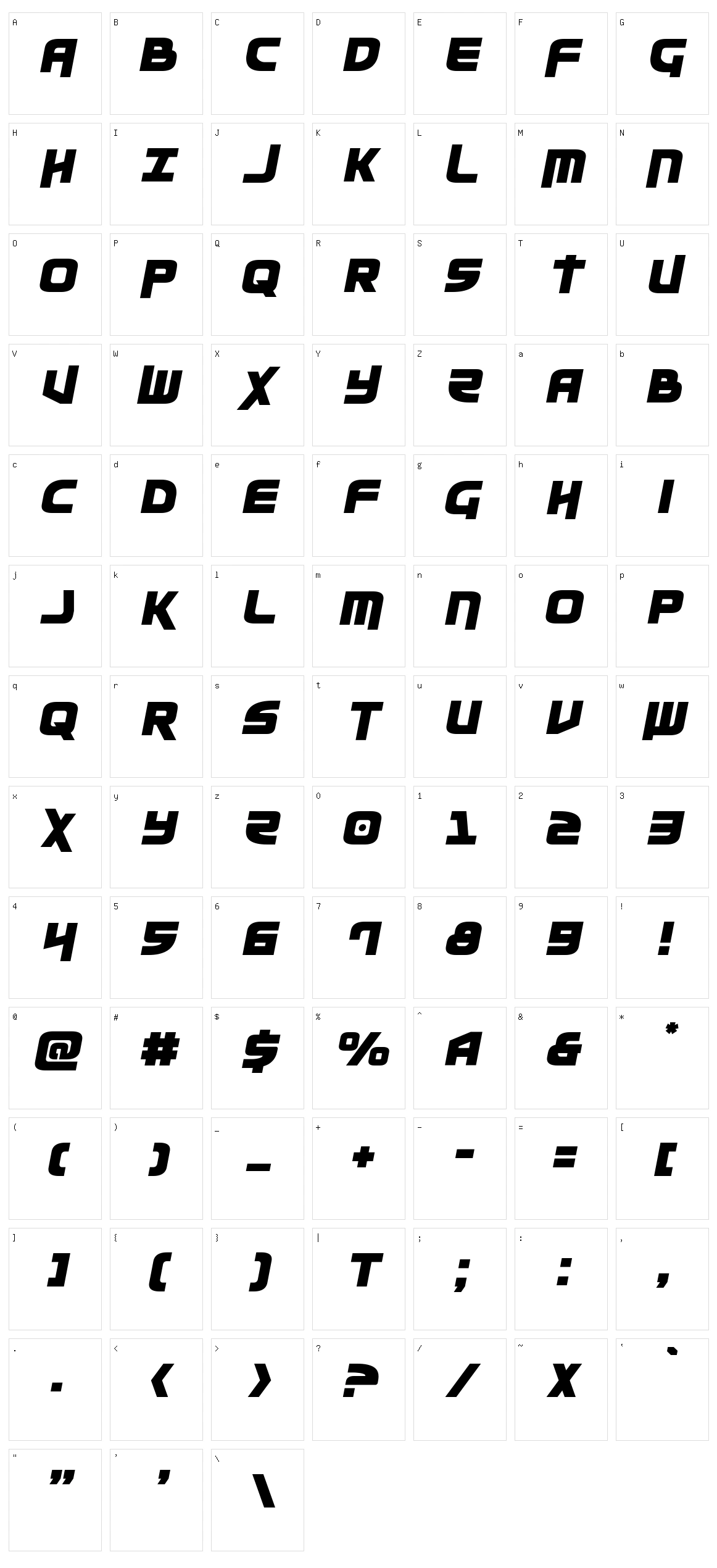
Moltors
This font comes with the following 14 versions: Regular, Italic, Semi-Italic, Leftalic, Condensed, Condensed Italic, Expanded, Expanded Italic, 3D, 3D Italic, Outline, Outline Italic, Punch and Punch Italic.